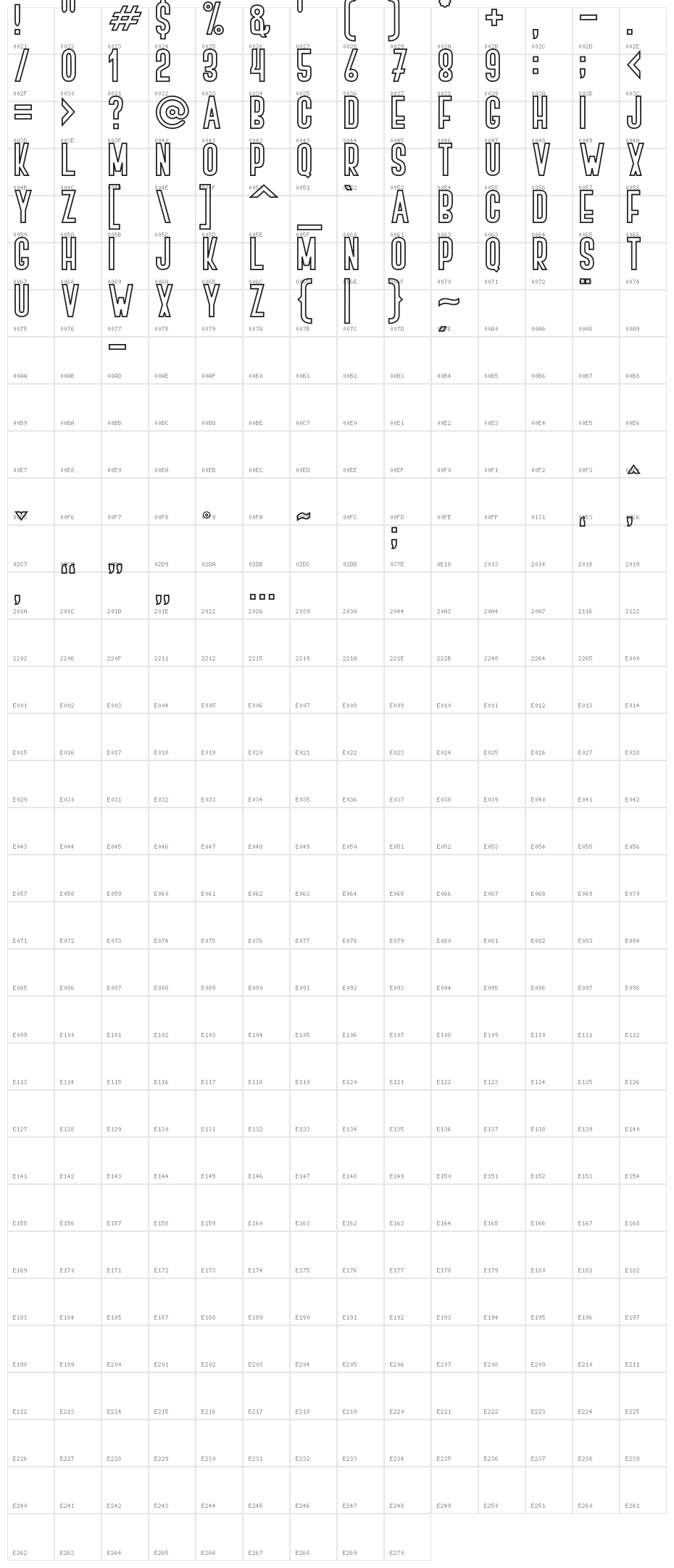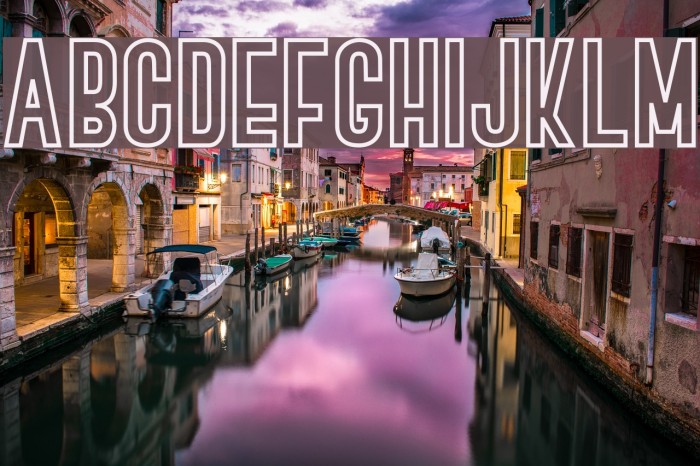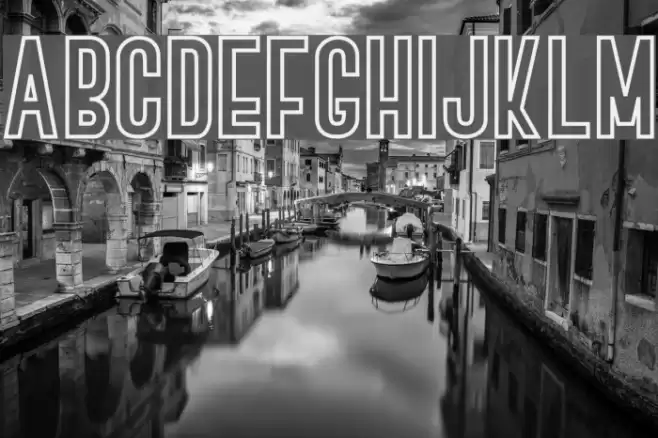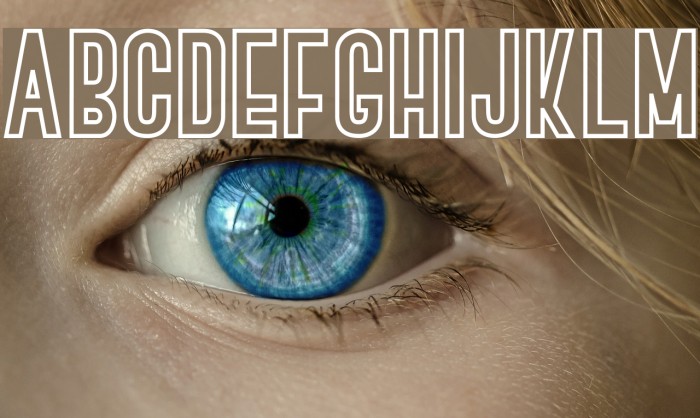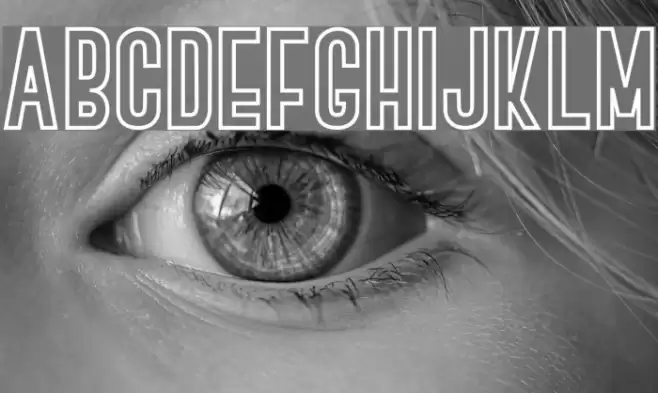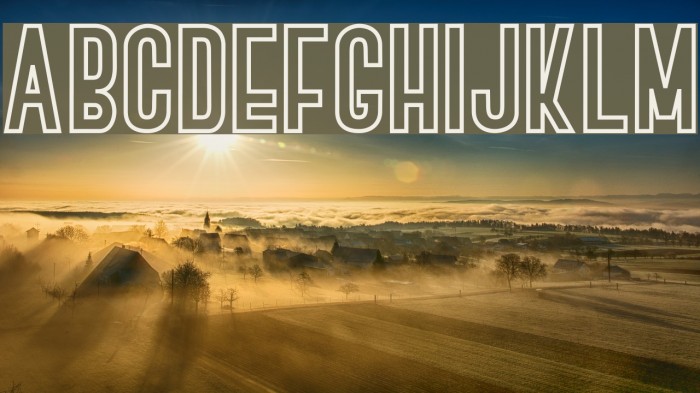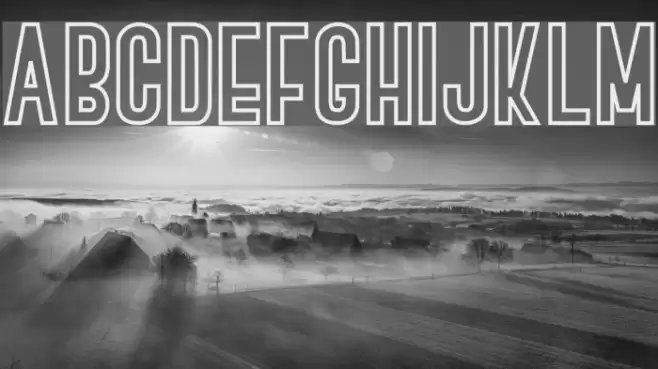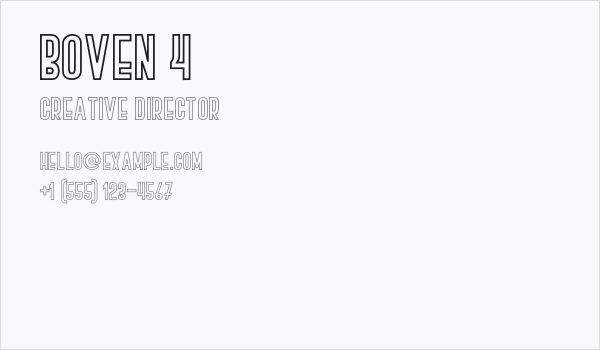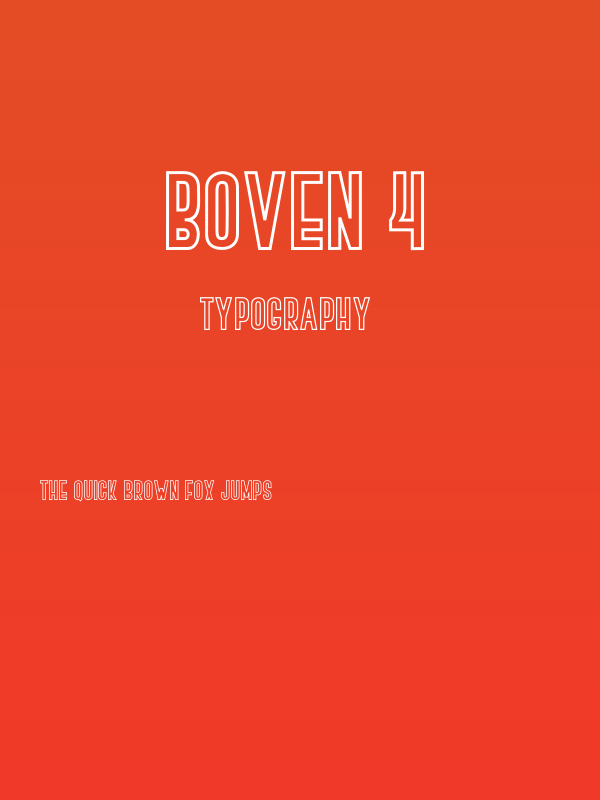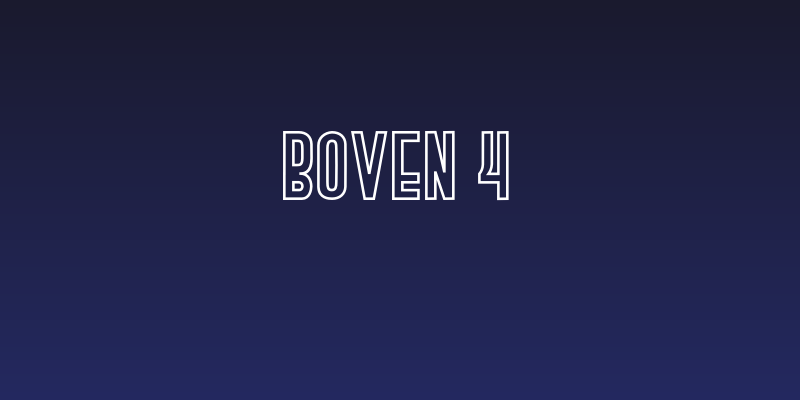
BOVEN 4 Font
BOVEN 4 Description
This font features a bold, geometric design with clean lines and a modern aesthetic. Each character is outlined, creating a hollow effect that adds depth and dimension. The uppercase and lowercase letters maintain a consistent style, with sharp angles and uniform stroke widths. Numbers and special characters follow the same design principles, ensuring a cohesive look across all elements. The font's structure is highly legible, making it suitable for various applications where clarity and impact are essential.
| Proposed Projects | Ideal for branding, signage, posters, and headlines where a strong visual impact is needed. |